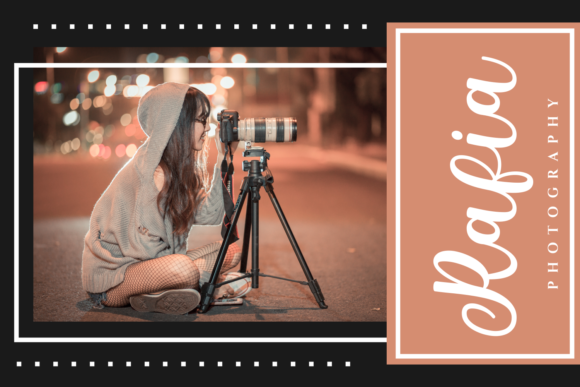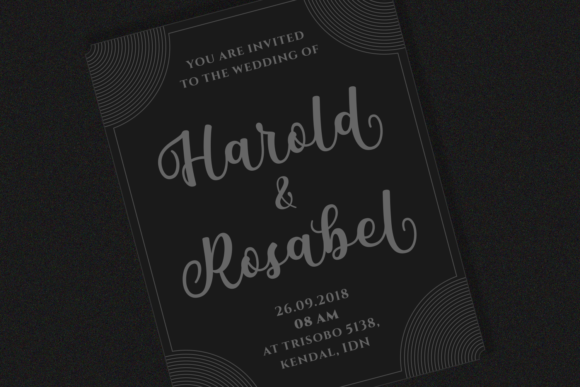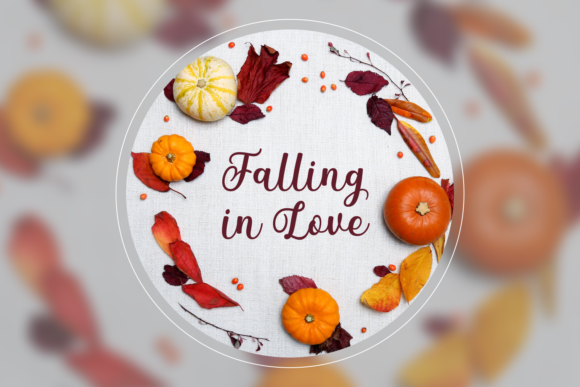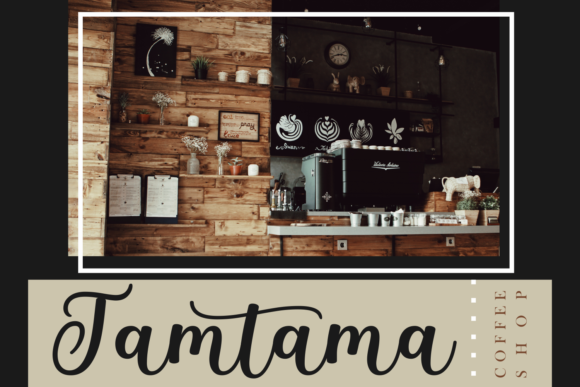
Mantul Font
About Mantul Font
Mantul is modern calligraphy at its finest. It has a modern and unique form of calligraphy, making the writing style very natural.